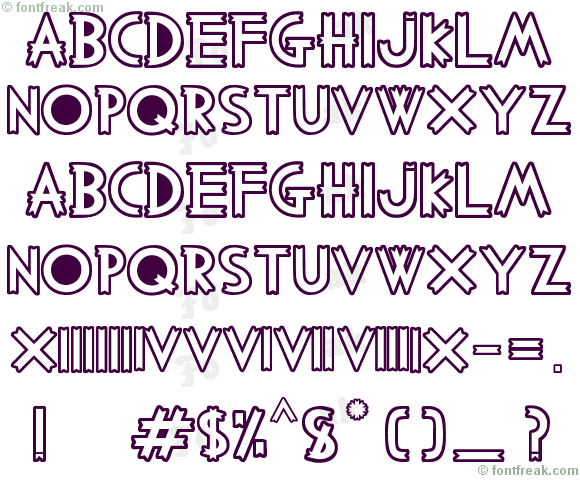
PALO SANTO
About PALO SANTO
The PALO SANTO font, crafted by woodcutter Manero, is a captivating display typeface that blends whimsy with a rustic charm. This font features a bold, playful design characterized by thick stroke weights and rounded forms, creating an inviting visual appeal. The contrast between the solid letters and their open centers adds a unique touch, making it stand out in various applications. The spacing is well-balanced, ensuring readability while maintaining its decorative essence.
This font is particularly well-suited for creative projects that require a touch of personality. It shines in use cases such as wedding invitations, where its charming aesthetic can beautifully complement romantic themes. PALO SANTO is also ideal for movie posters, offering a distinctive flair that grabs attention and conveys a sense of fun. Additionally, it works wonderfully for restaurant menus, especially for establishments aiming to create a casual and inviting atmosphere. Graphic designers will find it a valuable asset for branding materials, allowing small business owners to convey their unique identity effectively.
The target audience for PALO SANTO includes graphic designers, small business owners, and content creators who seek to elevate their projects with a distinctive typeface that stands out. Whether you're looking to create eye-catching promotional materials or whimsical designs, this font delivers a memorable impact.
In conclusion, the PALO SANTO font free download offers a unique blend of charm and versatility, making it an essential addition to any designer's toolkit. Its engaging visual characteristics and playful nature ensure that it leaves a lasting impression, making it perfect for a wide array of creative endeavors. Embrace the spirit of creativity with PALO SANTO and let your projects shine.